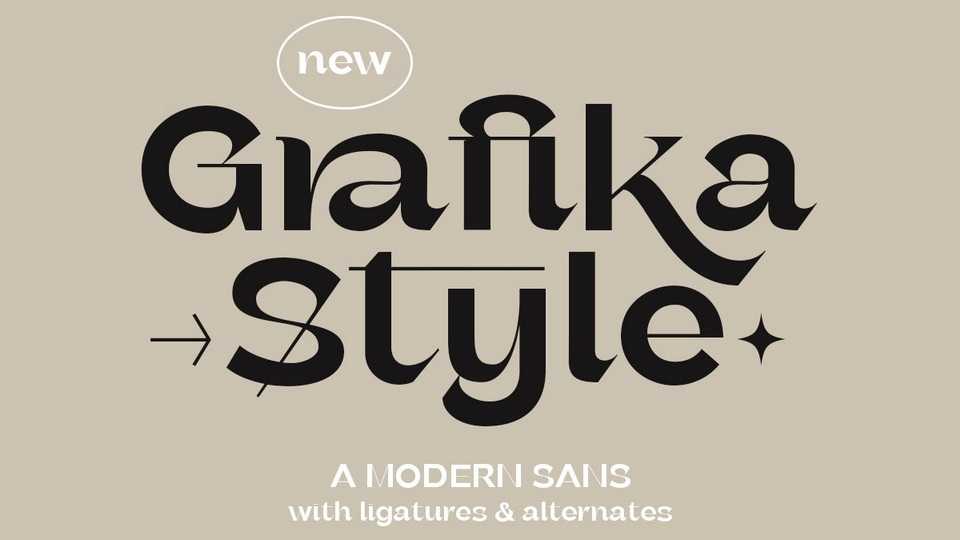
Download Grafika font, a modern sans serif typeface with a bunch of ligatures and alternates. Grafika font is perfect for fashion branding or editorial designs.